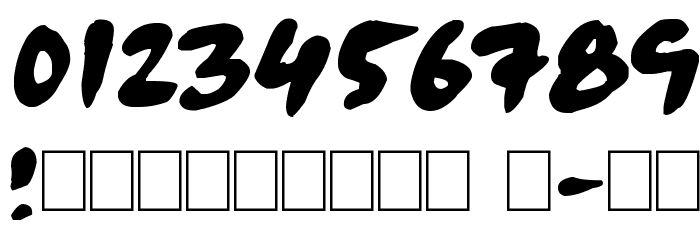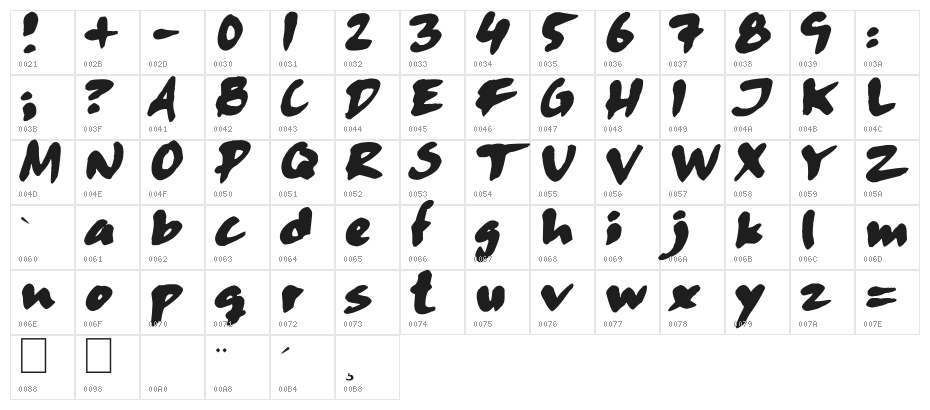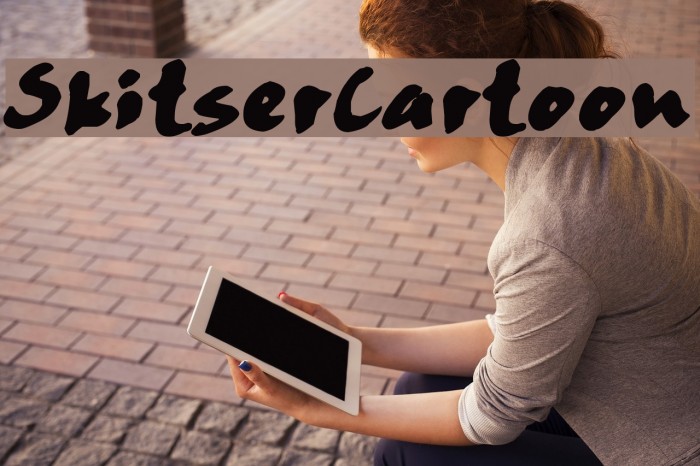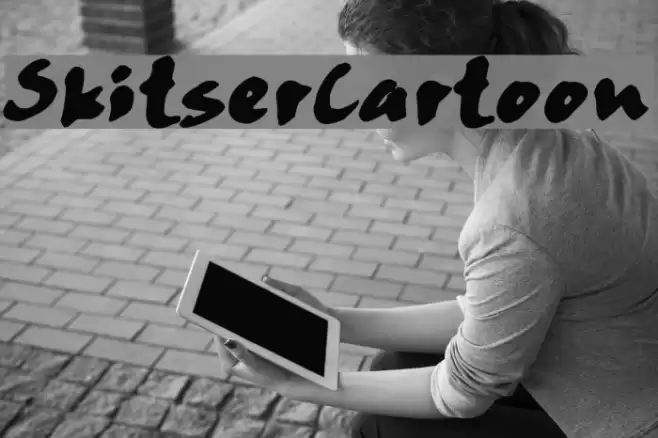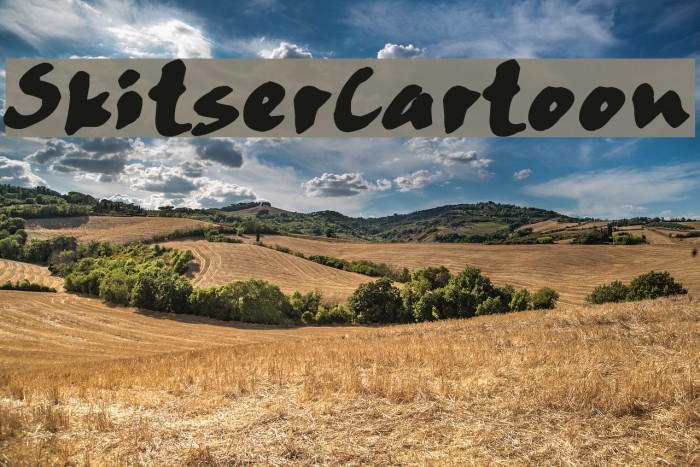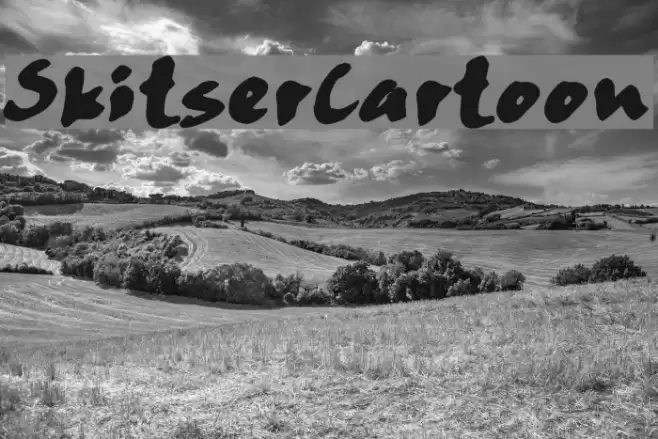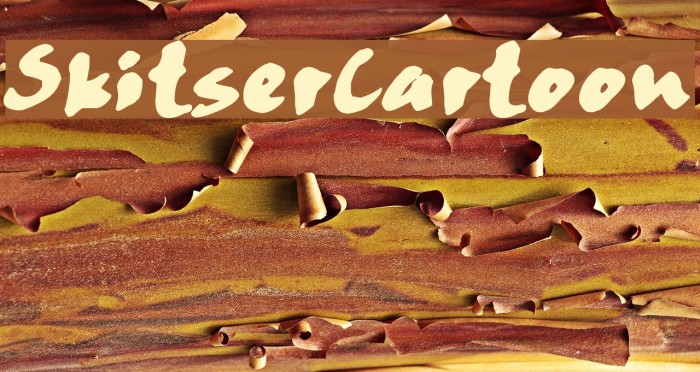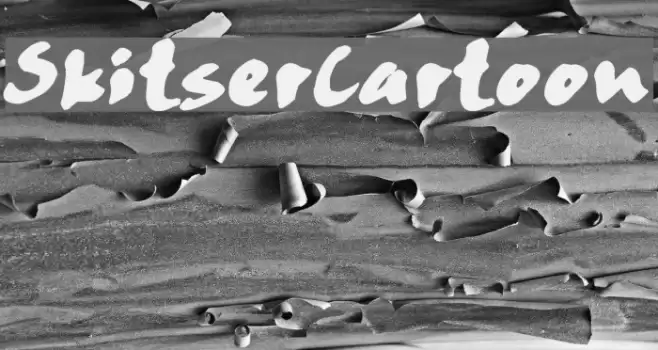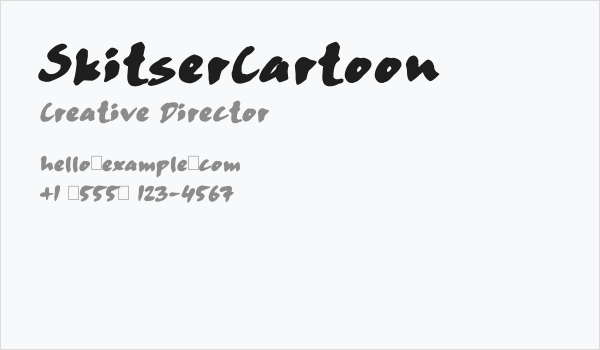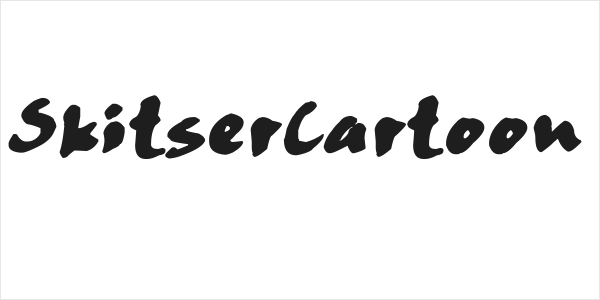
SkitserCartoon Font
SkitserCartoon Description
This playful and bold font features a hand-drawn, cartoonish style that exudes energy and creativity. The letters are characterized by their thick, uneven strokes and dynamic curves, giving them a lively and informal appearance. The uppercase and lowercase letters maintain a consistent style, with a slight slant that adds to their whimsical nature. The numbers and special characters follow the same energetic design, making them suitable for a variety of fun and engaging projects. The font's overall look is reminiscent of comic book lettering, making it perfect for projects that require a touch of humor and personality.
Proposed ProjectsIdeal for comic books, children's books, playful branding, and creative posters.